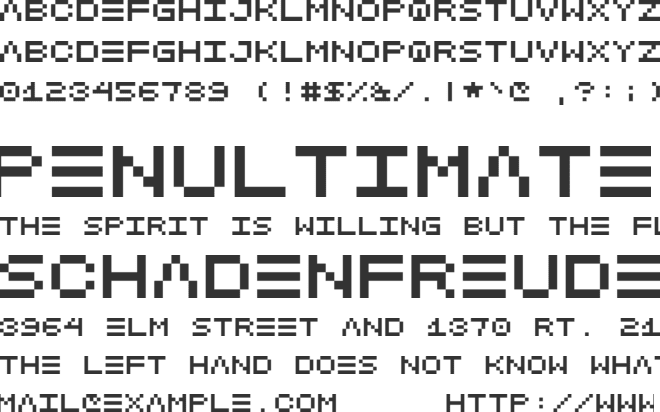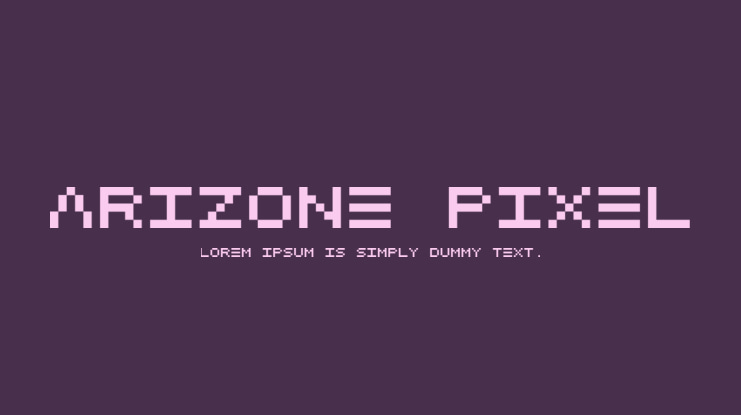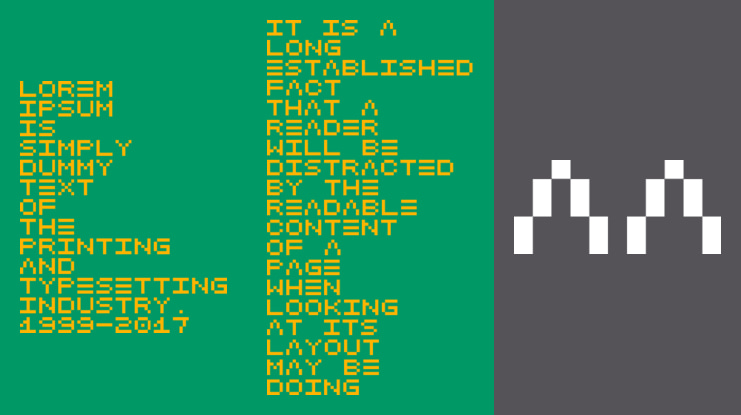
Arizone Pixel Font Family
A monospaced sci-fi design made for a friend! The angular counters give this a simplified geometry which makes it easy to read. Works well for small- or large-scale applications - chat, terminals, logos, and more.
Supports Dutch, English, and Greek.